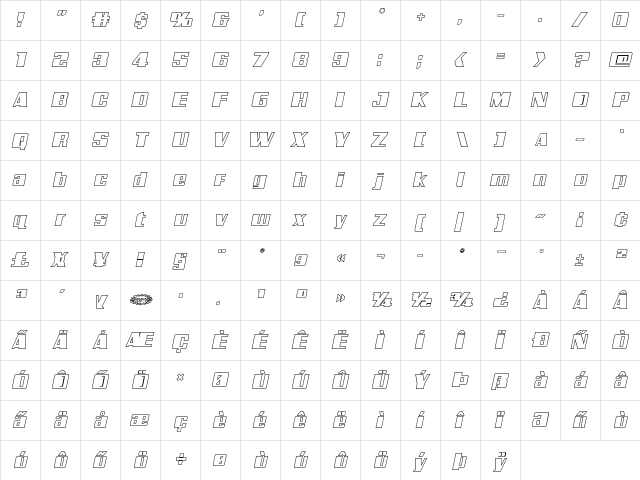
Galactic Storm Outline Italic Outline Italic
Design Context for Galactic Storm Outline Italic Typeface
Galactic Storm Outline Italic is built around its visual character rather than neutral utility — its distinctive forms are designed to make an impression at display sizes. Its italic angle brings a sense of urgency and motion to the letterforms.
Font Pairing: Pair with a clean neutral sans-serif for body copy to let Galactic Storm Outline Italic's character lead without overwhelming the composition.
Pro Tip: Treat Galactic Storm Outline Italic as the centrepiece of your typographic hierarchy. One strong heading set in a decorative face can carry an entire layout.